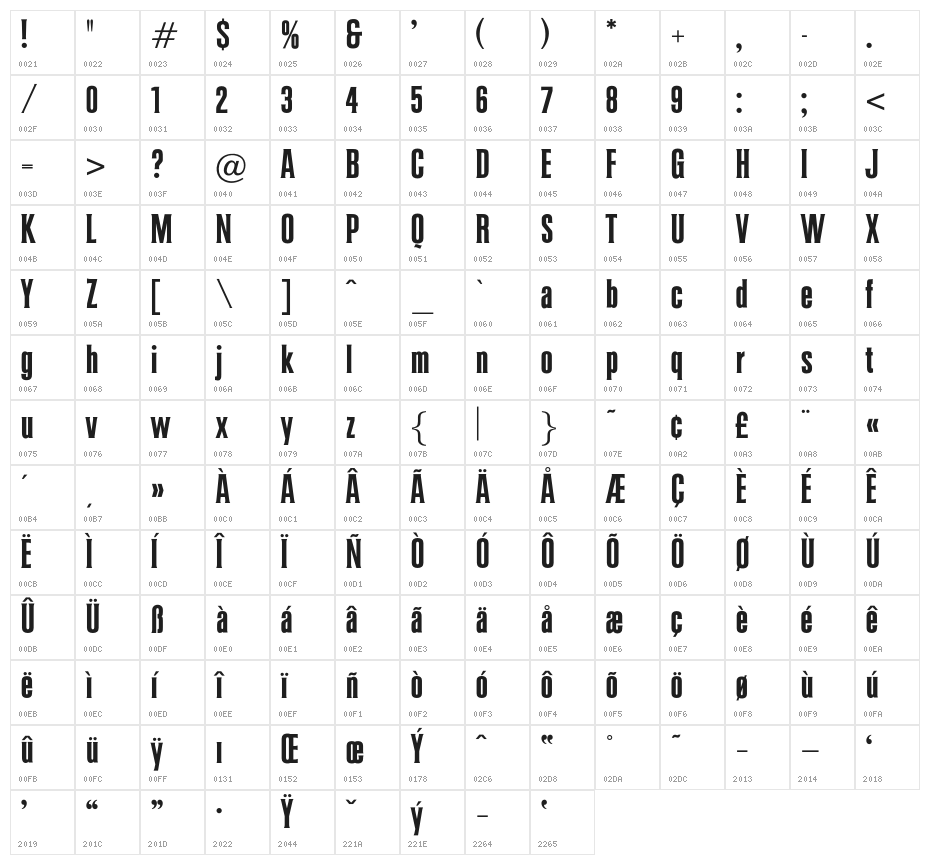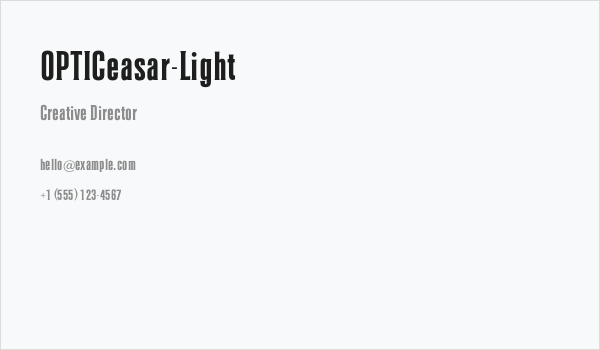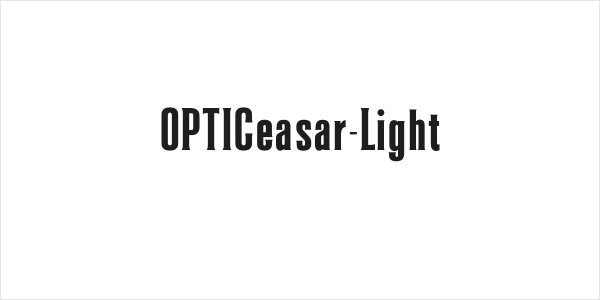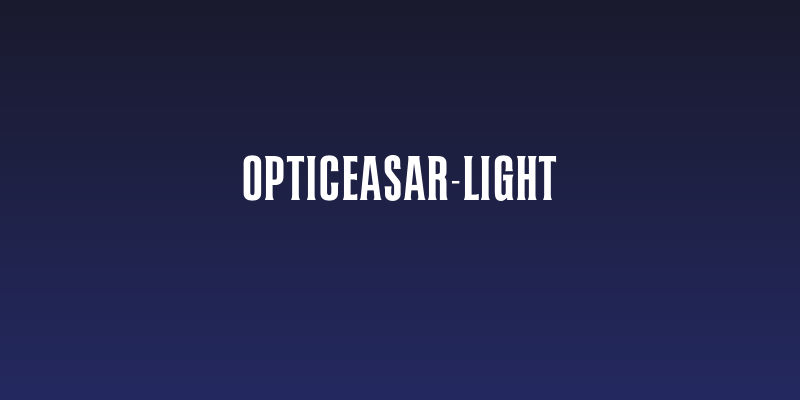
OPTICeasar-Light Font
OPTICeasar-Light Description
This font features a bold and impactful design with a strong presence. The uppercase letters are tall and narrow, giving a sense of authority and modernity. The lowercase letters maintain a consistent style, complementing the uppercase with a slightly more relaxed form. The numbers are clear and easy to read, matching the overall boldness of the font. Special characters are distinct and well-defined, ensuring clarity in various contexts. The font's design is suitable for making statements, with its high contrast and sharp edges.
| Proposed Projects | Ideal for headlines, posters, branding materials, and any project requiring a strong visual impact. |